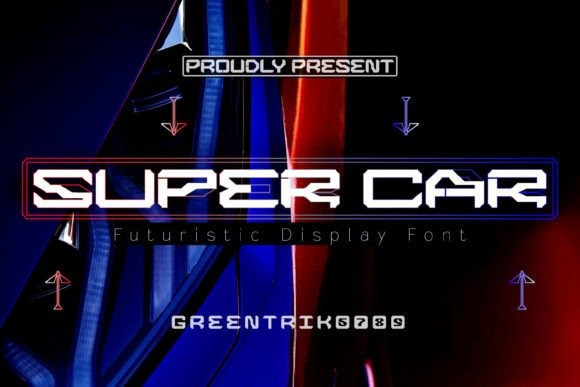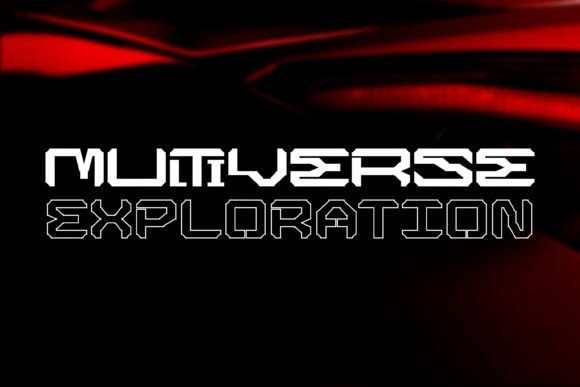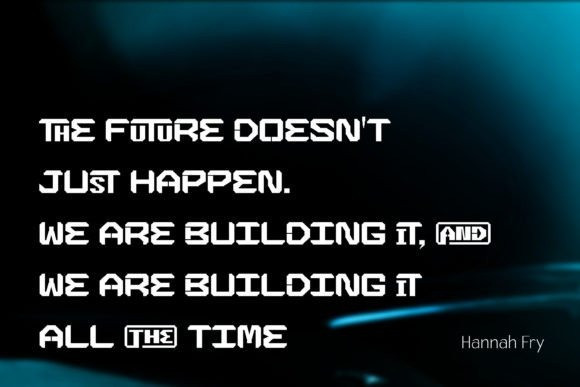
Super Car Font
Super Car is a modern display font that grabs a lot of attention. Innovative and futuristic, this font will be a great addition to your font’s library.